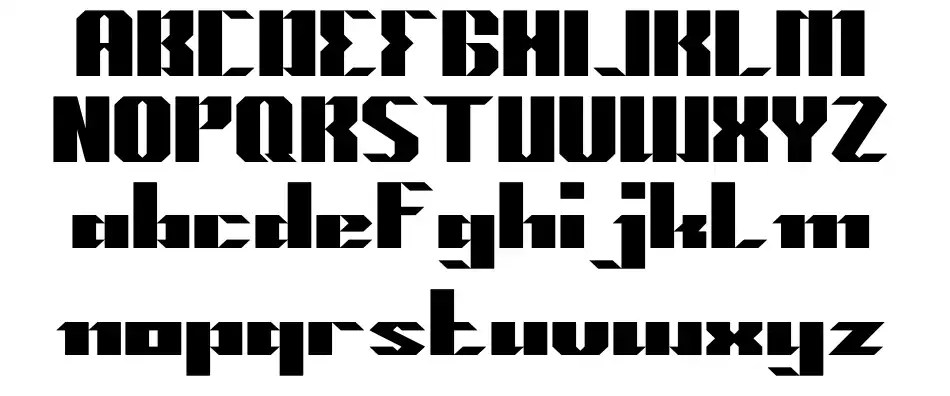
The Rise Of Gun Fonts In 2023
Gun fonts have become increasingly popular over the past few years, and 2023 is no exception. This year, with the rise of technology and digital media, gun fonts have become a popular choice for both web and print design. Gun fonts are a type of typeface that features a gun-like design, with a lettering style that looks like a gun or bullets. They are often used to create a bold, edgy look in designs, and are often seen in gaming, military, and sports-related designs.
How Gun Fonts Are Used
Gun fonts are used for a variety of purposes, from creating logos and branding to creating website headers and titles. They are also used to create unique and attention-grabbing designs that stand out from the crowd. Gun fonts are often used in designs that want to convey strength and power, such as in military or sports designs. They can also be used to create a more playful and fun look, as seen in some gaming designs.
The Popularity of Gun Fonts in 2023
Gun fonts have become increasingly popular in 2023, as more and more designers are looking for ways to add a unique and edgy look to their designs. With the rise of technology and digital media, gun fonts have become a popular choice for both web and print design. As gun fonts can be used to create a bold, edgy look in designs, they are often seen in gaming, military, and sports-related designs. As digital media becomes more popular and accessible, more people are turning to gun fonts to create unique and attention-grabbing designs that are sure to stand out from the crowd.
Gun fonts have become increasingly popular in 2023, and are a great choice for designers who want to create a bold, edgy look in their designs. They can be used to create logos and branding, website headers and titles, and unique designs that stand out from the crowd. With the rise of digital media and technology, gun fonts are becoming a popular choice for both web and print design. If you are looking to create a unique and attention-grabbing design, gun fonts may be the perfect choice for you.